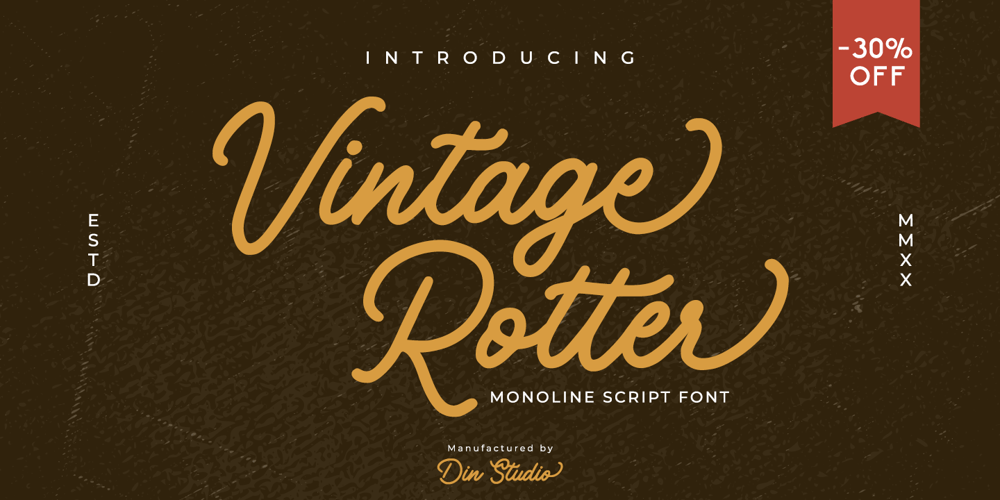
Vintage Rotter
Vintage Rotter font
Vintage Rotter Font Family was designed by Donis Miftahudin and published by Din Studio. Vintage Rotter contains 1 styles and family package options. Vintage Rotter is monoline script font. Made for any professional project branding. It is the best for branding, printing, wedding and quotes. Every letter has a unique and beautiful touch.Features: Alternates Standar Ligature PUA Encoded Multilingual Support Numerals and Punctuation Thank you for downloading premium fonts from Din Studio